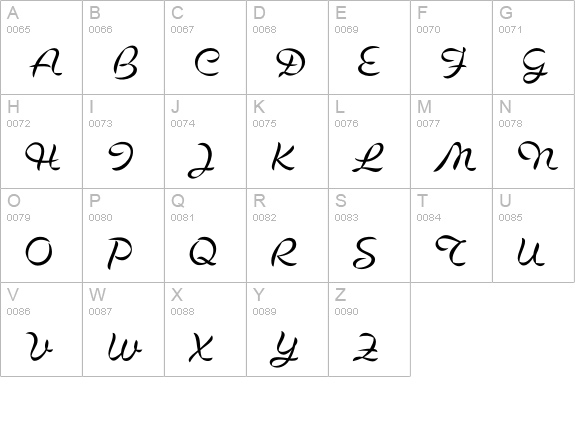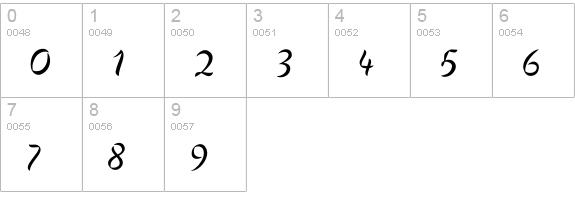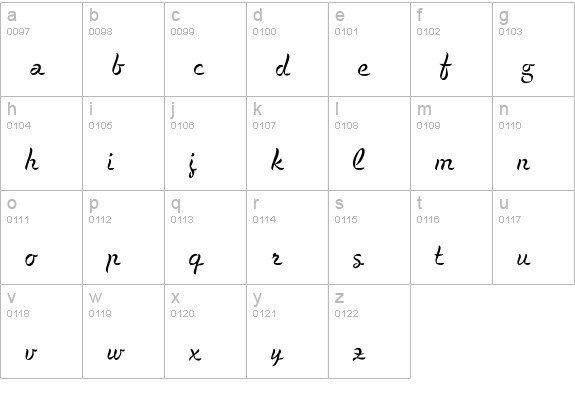
Serenade Font Details
Introducing Serenade font, a versatile and elegant typeface that is sure to captivate and enchant your audience. Crafted with meticulous attention to detail, Serenade effortlessly combines classic charm with modern sophistication, making it the perfect choice for a wide range of creative projects. With its graceful curves, refined letterforms, and exquisite serifs, Serenade exudes an air of refinement and elegance that will add a touch of class to any design. Whether you're designing a wedding invitation, crafting a logo for a high-end brand, or creating stunning headlines for a fashion magazine, Serenade will elevate your project to new heights. But what sets Serenade apart is its unique feature - it's free! That's right, Serenade font is freely available to download at FontsMarket.com. We believe that great design should be accessible to everyone, and we are thrilled to offer this exceptional font for free, allowing you to bring your creative vision to life without any limitations. Not only does Serenade boast a wide range of weights and styles, from light and delicate to bold and powerful, but it also includes a plethora of OpenType features. These features, such as ligatures, alternates, and swashes, offer you endless possibilities to customize and personalize your designs, ensuring that every project is truly one-of-a-kind. Whether you're a professional designer or a passionate hobbyist, Serenade font will become an invaluable addition to your typeface collection. Its versatility, beauty, and the fact that it is freely available to download at FontsMarket.com make it a must-have for anyone seeking to create visually stunning and impactful designs. So don't miss out on this exceptional opportunity - download Serenade font today and let its enchanting melodies fill your creative endeavors with elegance and charm.